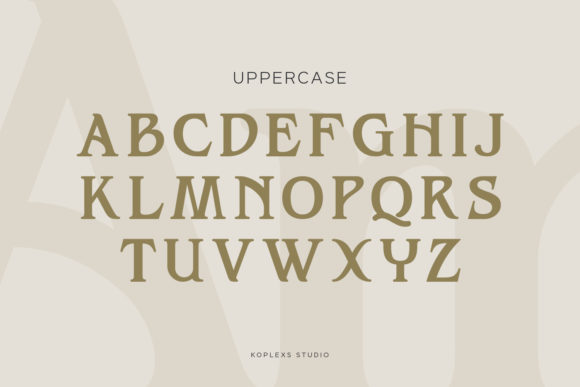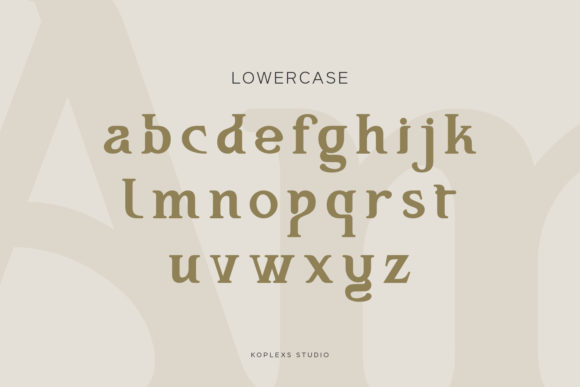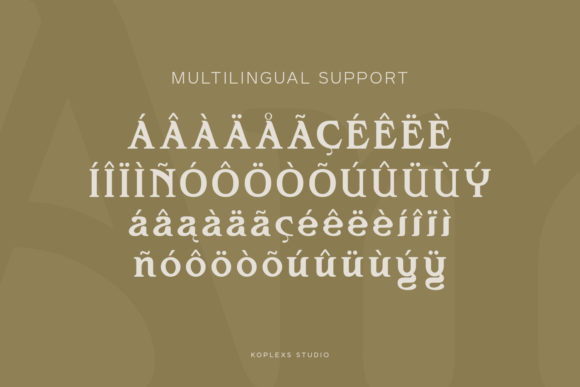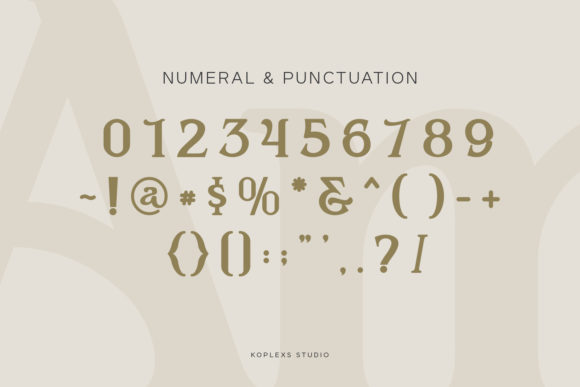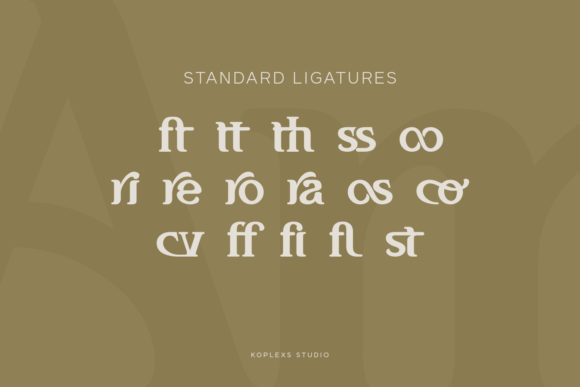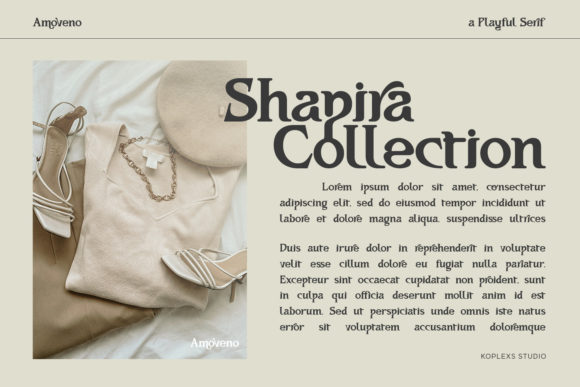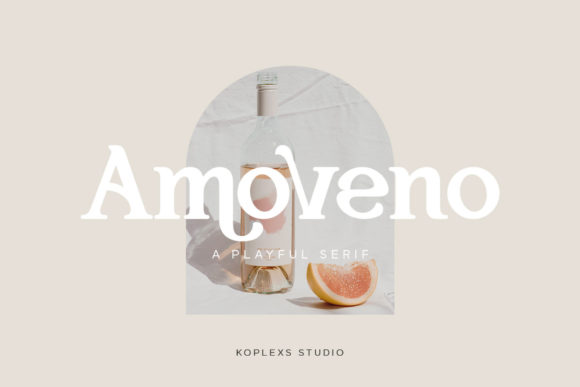
Introducing Amoveno Font: The Ultimate Serif Font for Modern Designers
Are you tired of using the same old fonts for your design projects? Look no further than Amoveno Font, a playful, elegant, and modern serif font that’s perfect for a wide range of applications. In this article, we’ll dive into the features and benefits of Amoveno Font, and explore how it can elevate your design game.
A Versatile Font for Every Project
Amoveno Font is designed to be versatile, making it suitable for a variety of project ideas. Whether you’re working on branding, logo design, clothing branding, product packaging, magazine headers, or wedding invitations, Amoveno Font is the perfect choice. Its modern serif design ensures that your project stands out from the crowd, while its elegant and playful feel adds a touch of sophistication.
Key Features of Amoveno Font
- Playful, Elegant, and Modern Design: Amoveno Font boasts a unique blend of playfulness, elegance, and modernity, making it perfect for designers who want to create visually stunning projects.
- PUA Encoded: Amoveno Font is PUA (Private Use Area) encoded, which means you can access all the glyphs and swashes with ease. This feature makes it easy to customize your designs and add a personal touch.
- Wide Range of Applications: From poster design to wedding invitations, Amoveno Font is suitable for a wide range of applications. Its versatility makes it a valuable addition to any designer’s font library.
Benefits of Using Amoveno Font
So, why should you choose Amoveno Font for your next design project? Here are just a few benefits of using this amazing font:
- Stand Out from the Crowd: With Amoveno Font, you can create designs that stand out from the crowd. Its unique and modern design ensures that your project grabs attention and leaves a lasting impression.
- Easily Customizable: Thanks to its PUA encoding, Amoveno Font is easily customizable. You can access all the glyphs and swashes to add a personal touch to your designs.
- Saves Time and Effort: With Amoveno Font, you can save time and effort in your design process. Its versatility and ease of use make it easy to create stunning designs in no time.
Who Can Benefit from Amoveno Font?
Amoveno Font is perfect for a wide range of designers and crafters, including:
- Graphic Designers: Whether you’re working on branding, logo design, or marketing materials, Amoveno Font is a great addition to your font library.
- Digital Artists: If you’re creating digital art, illustrations, or graphics, Amoveno Font can add a touch of elegance and sophistication to your work.
- Crafters: If you’re into crafting, scrapbooking, or DIY projects, Amoveno Font can help you create beautiful and unique designs.
- Wedding and Event Planners: Amoveno Font is perfect for creating stunning wedding invitations, event flyers, and other promotional materials.